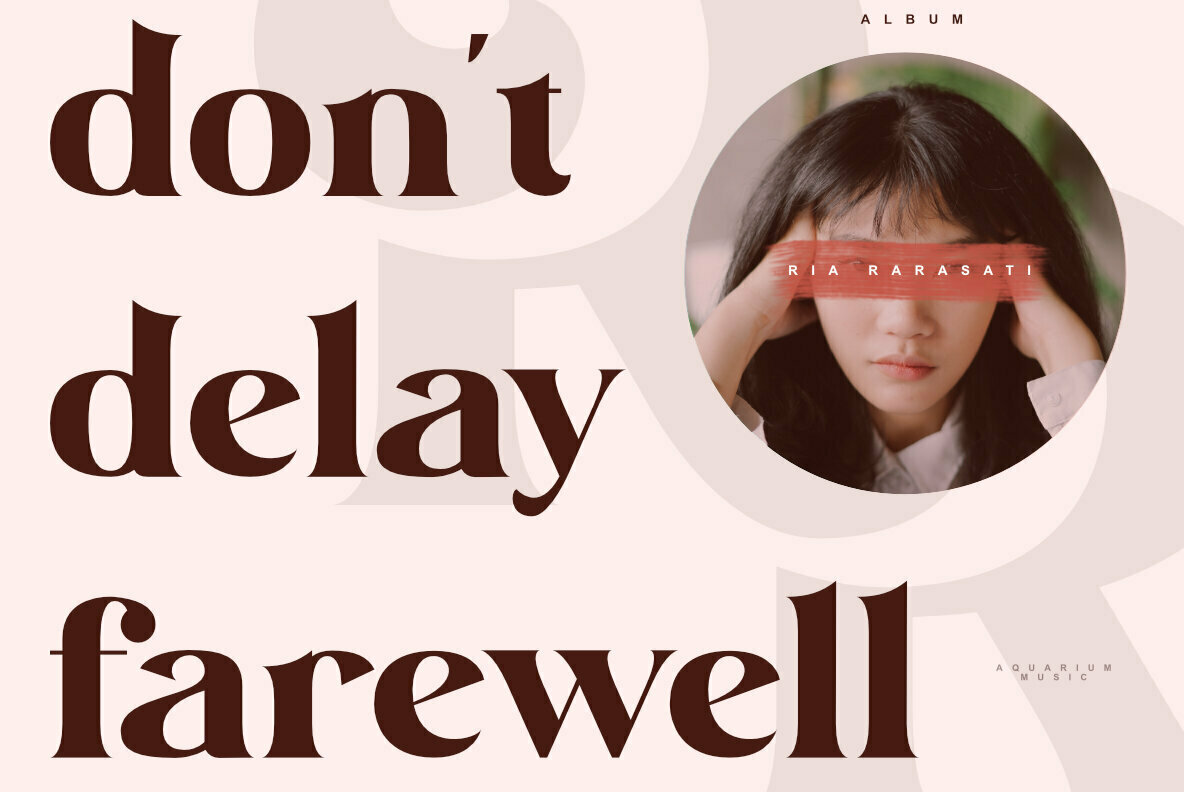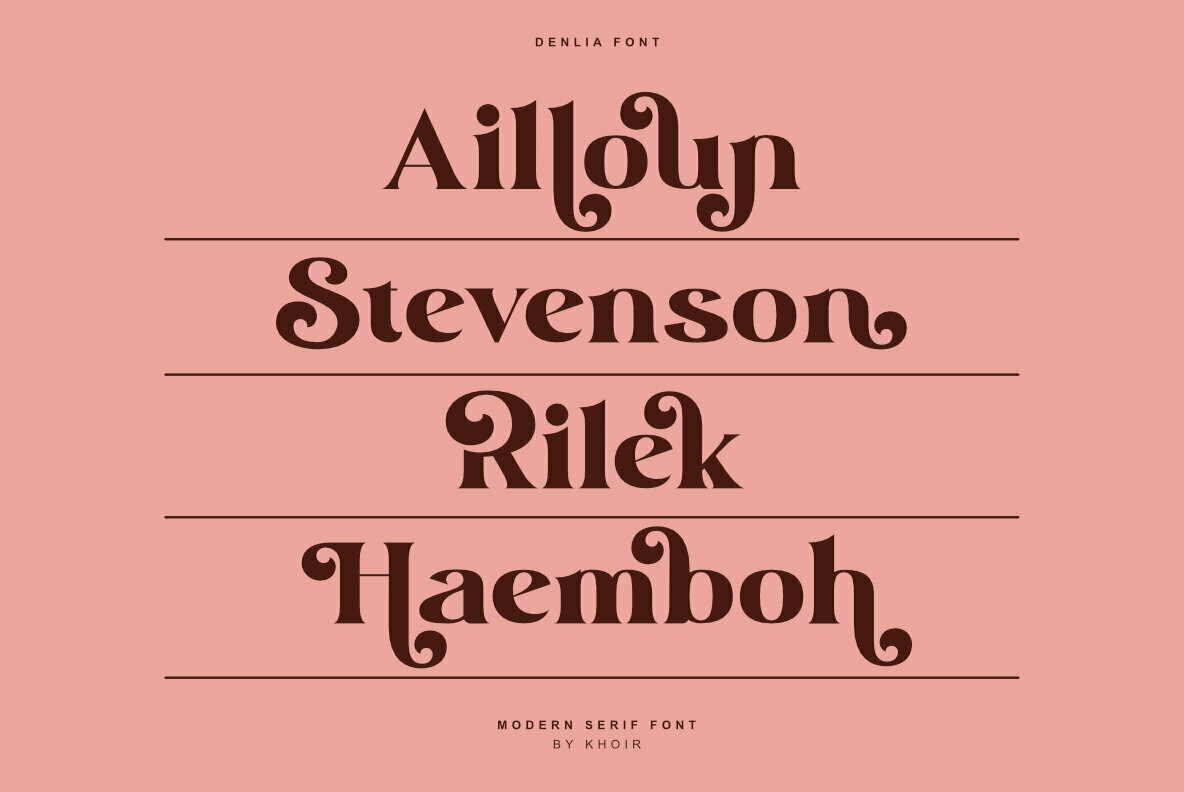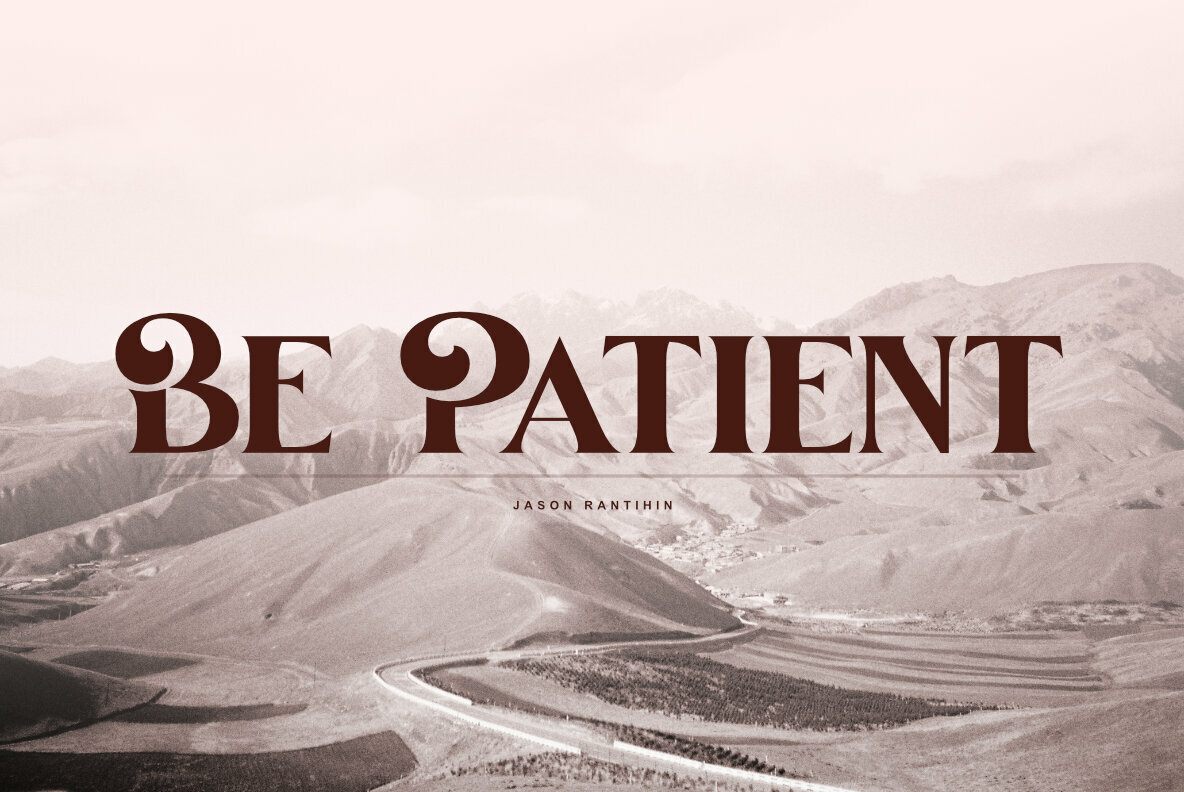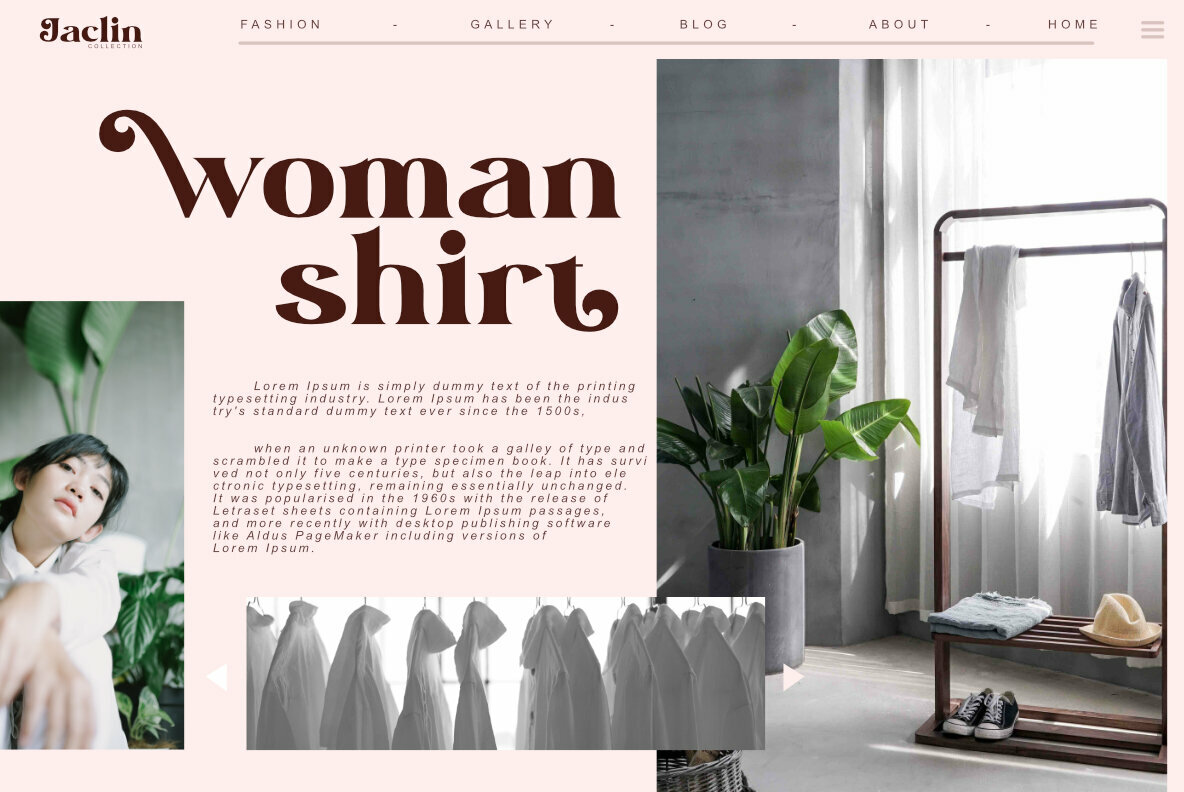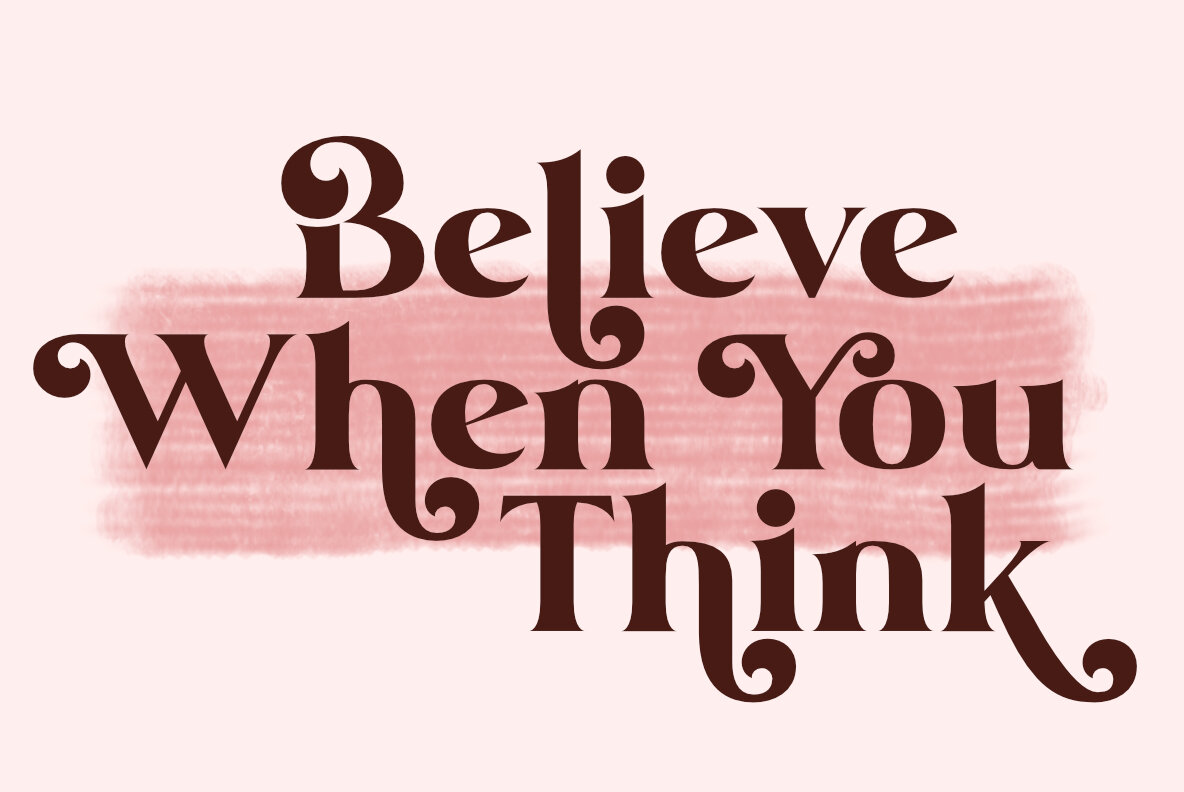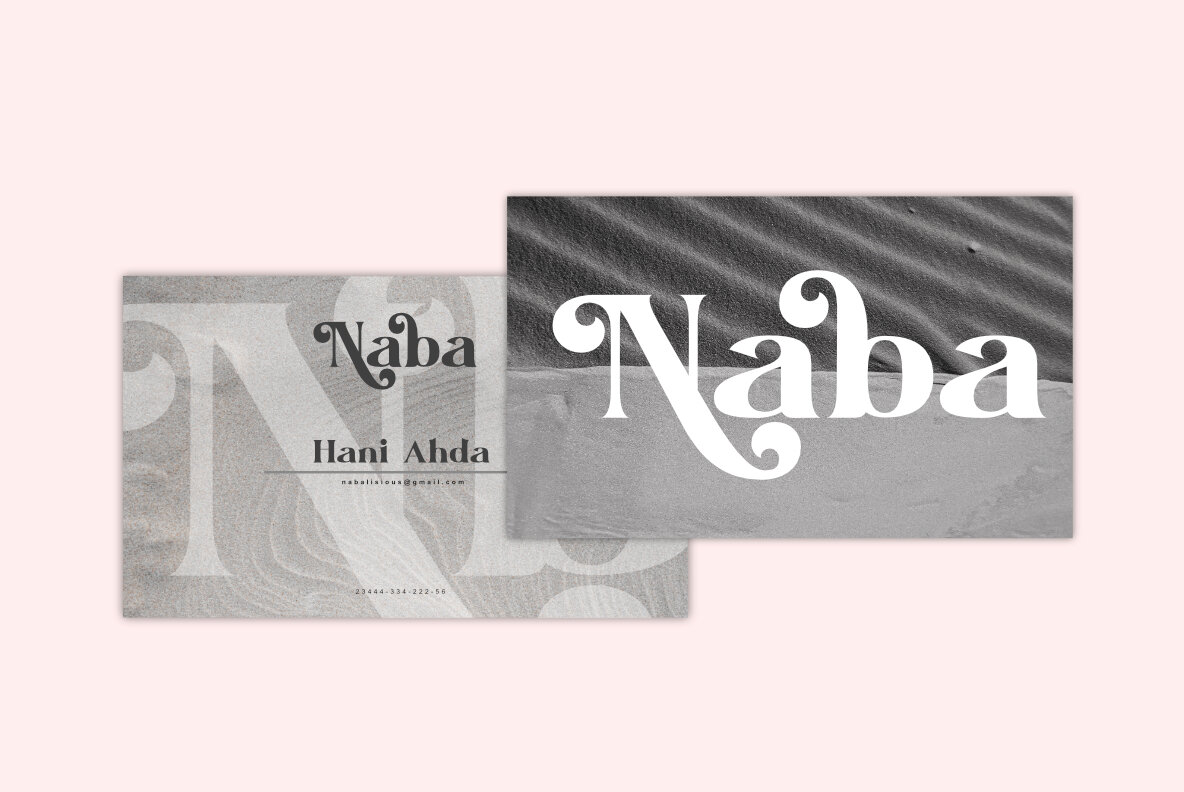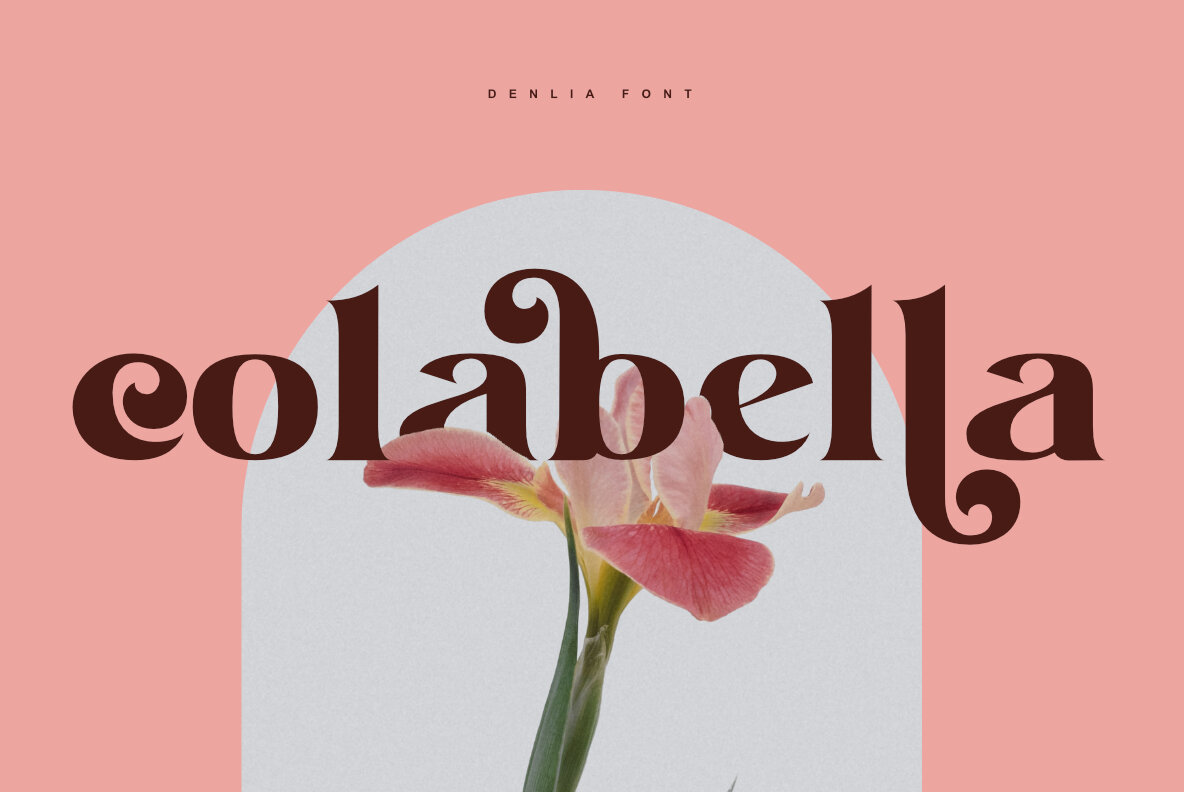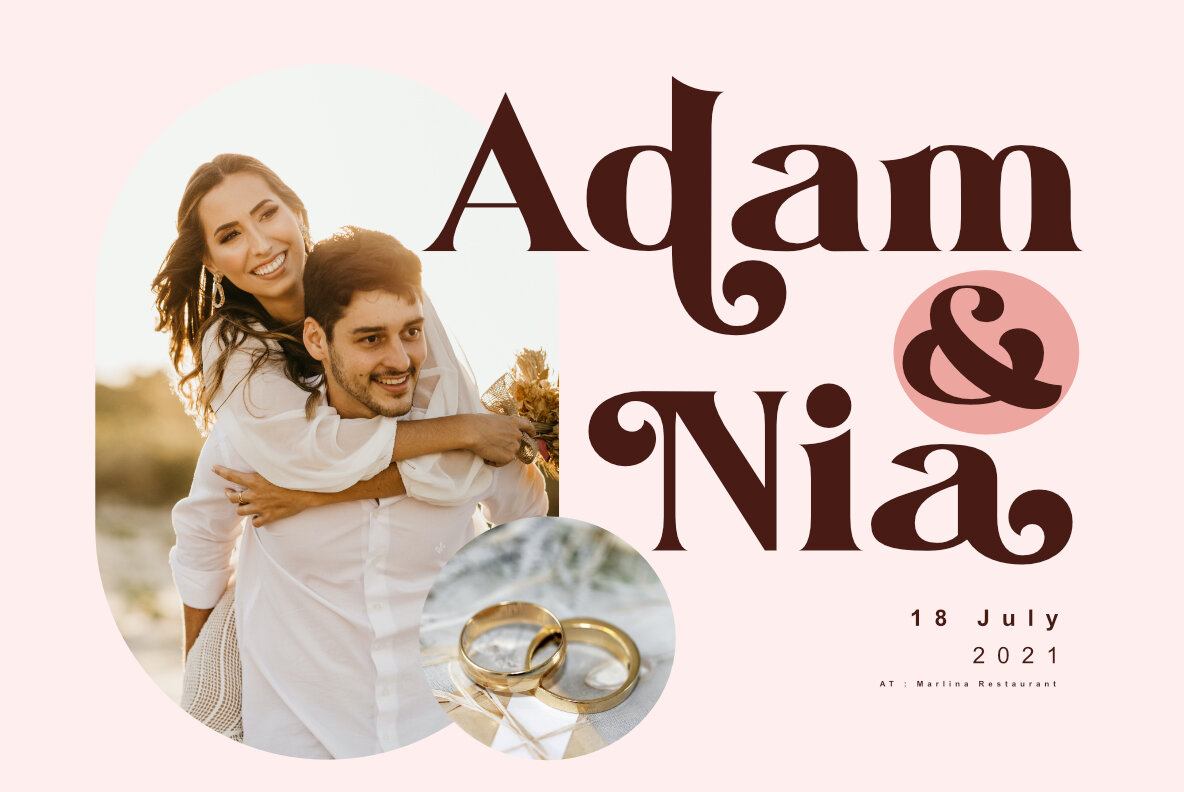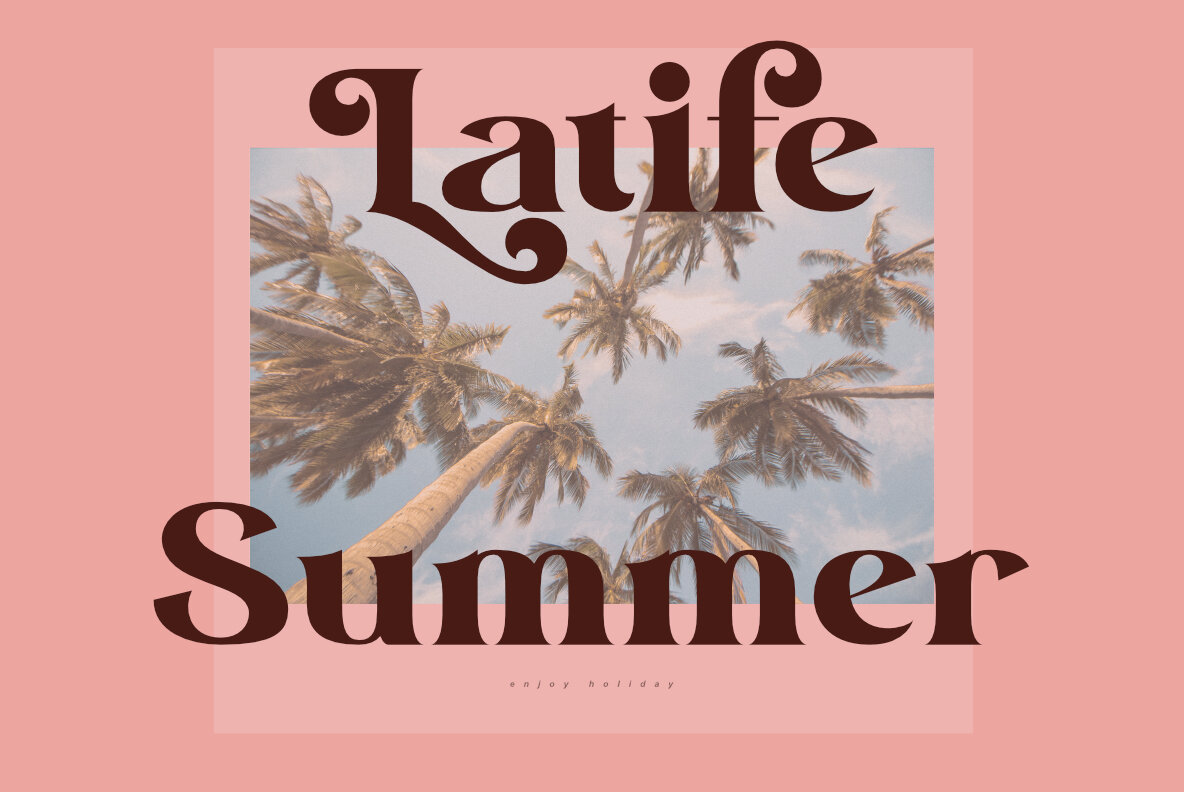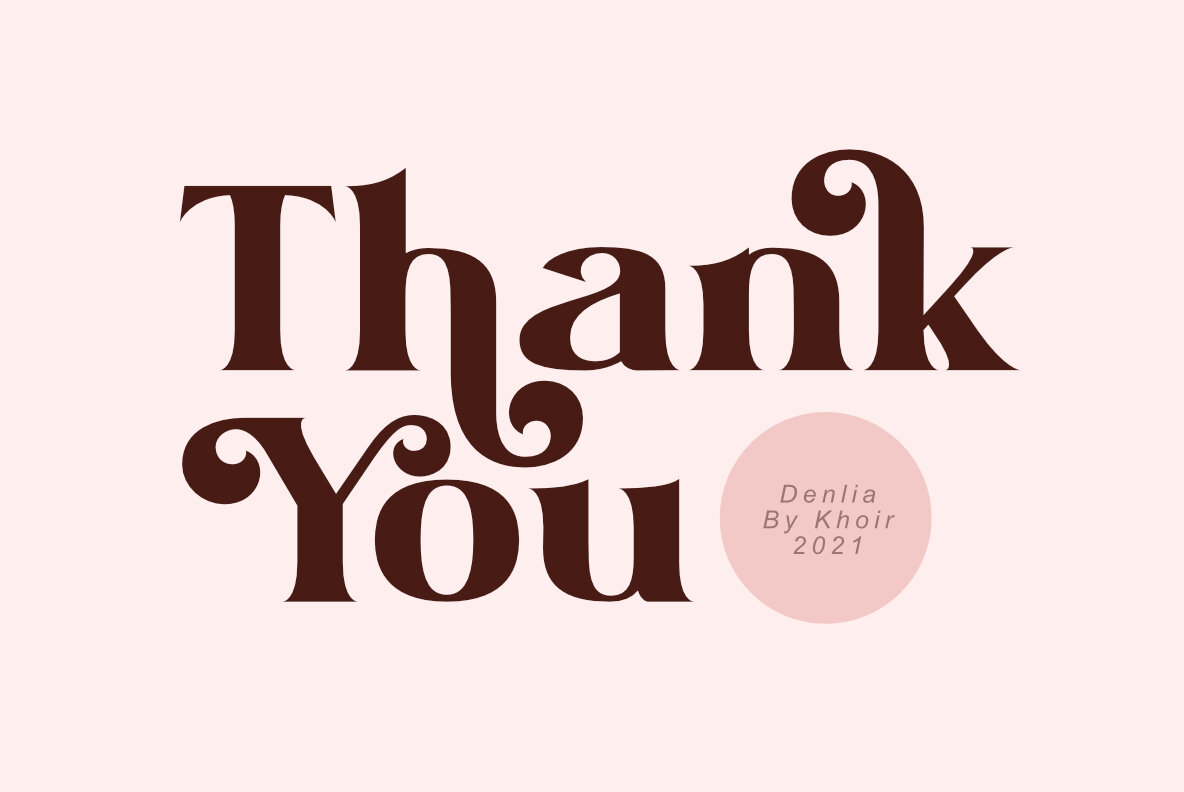
Denlia: Unique Modern Serif for Versatile Design
Meet Denlia, a modern serif font distinguished by its unique character and impeccable readability. Ideal for creative endeavors, this typeface adds a distinctive touch to any project while maintaining clarity. Its versatility makes it suitable for various applications and sizes, from branding to print media.
• Uppercase and lowercase characters
• Multilingual support for over 75 languages
• 100 alternative forms